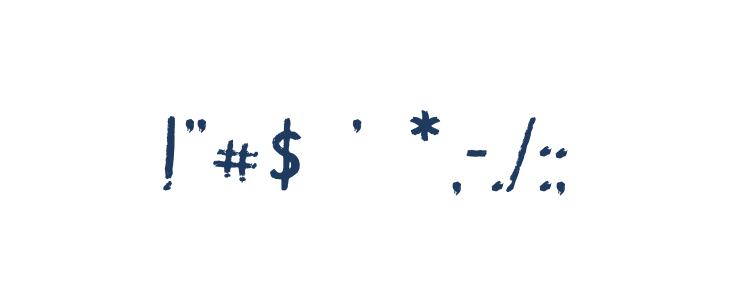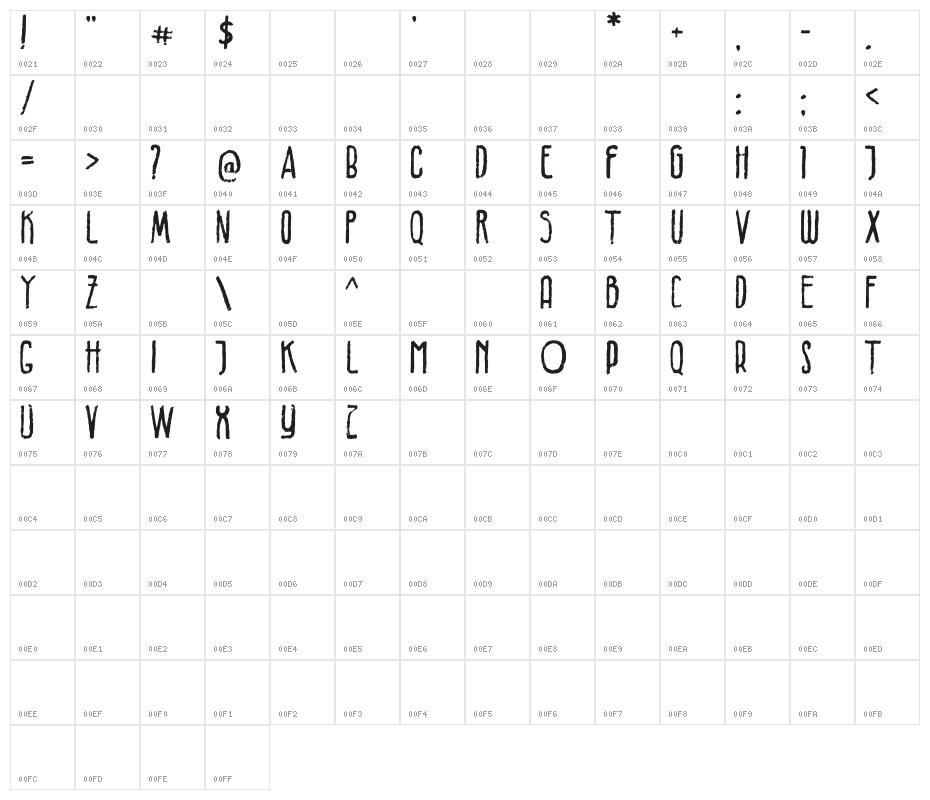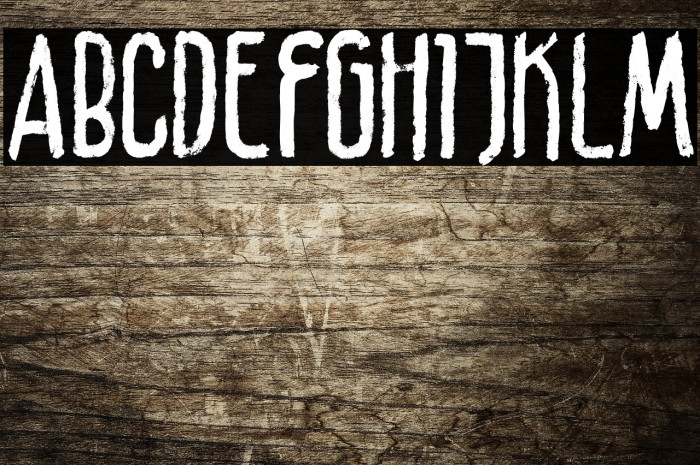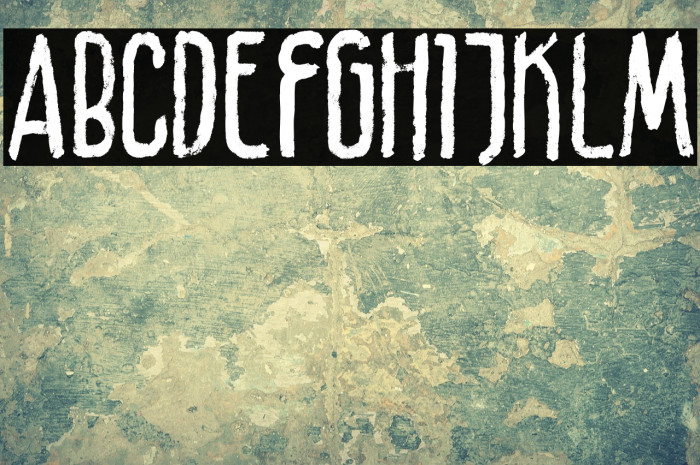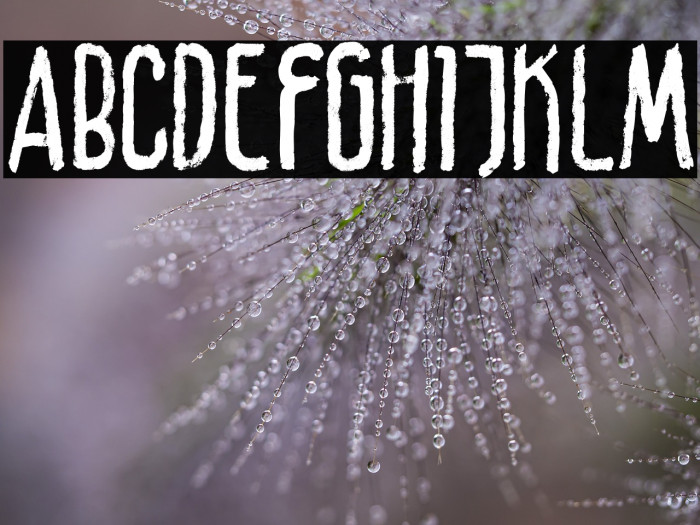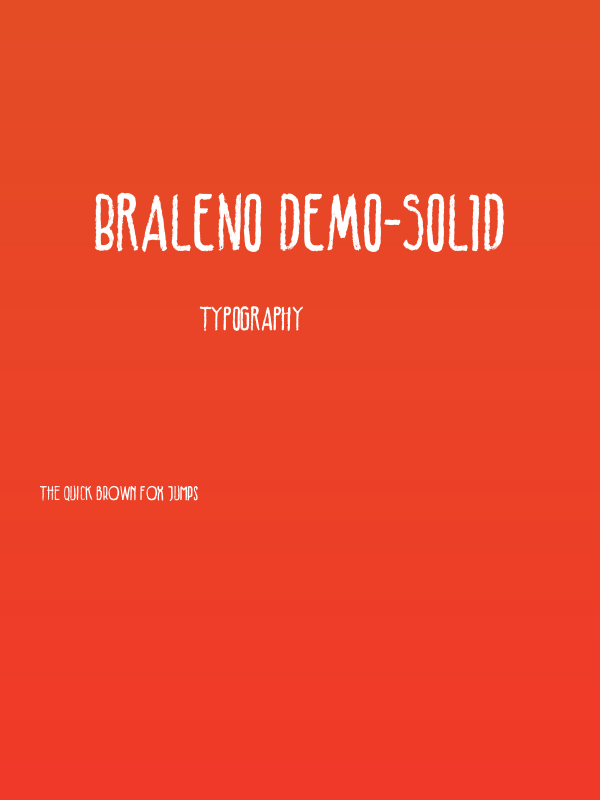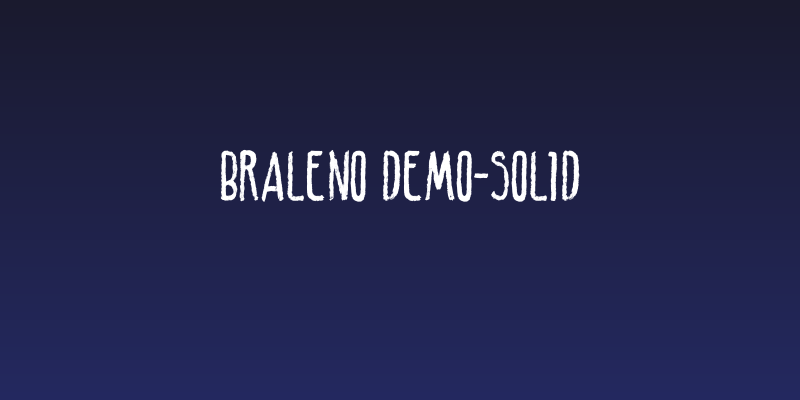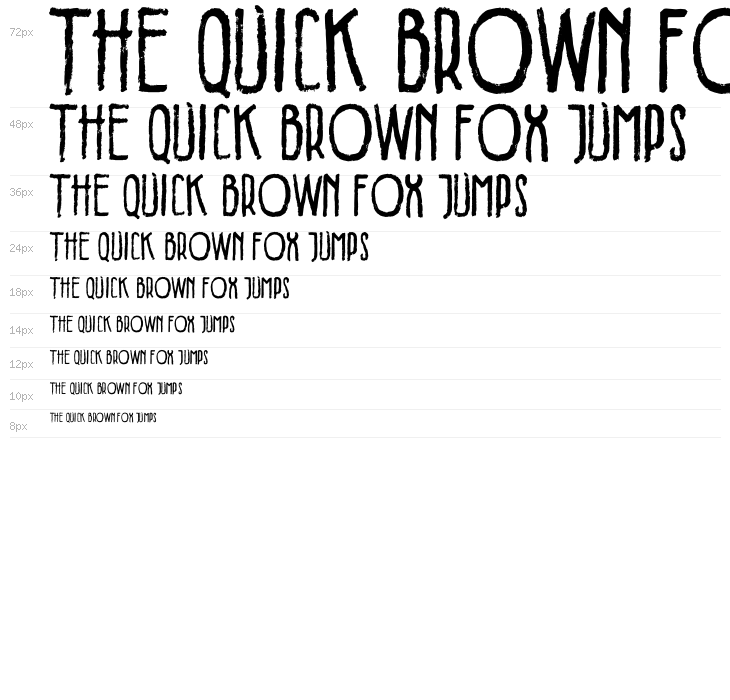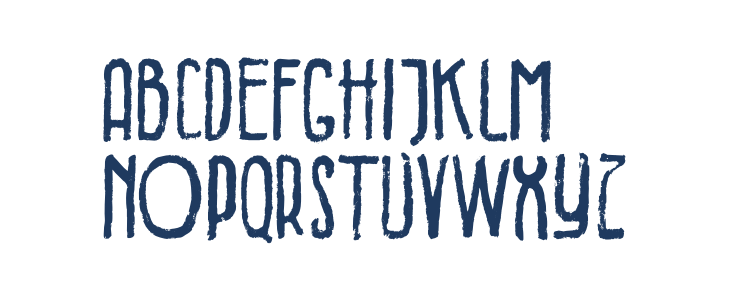
Braleno DEMO-Solid Font
Braleno DEMO-Solid Description
This font features a rugged, hand-drawn style with a distressed texture that gives it a unique, organic appearance. The letters are tall and narrow, with uneven edges that create a sense of movement and dynamism. The uppercase and lowercase characters maintain a consistent style, while the numbers and special characters complement the overall aesthetic. The font's rough texture and irregular lines make it ideal for projects that require a bold, artistic touch. Its distinctive look can add character and personality to any design, making it suitable for creative and unconventional applications.
| Proposed Projects | Ideal for posters, album covers, artistic branding, and creative packaging designs. |